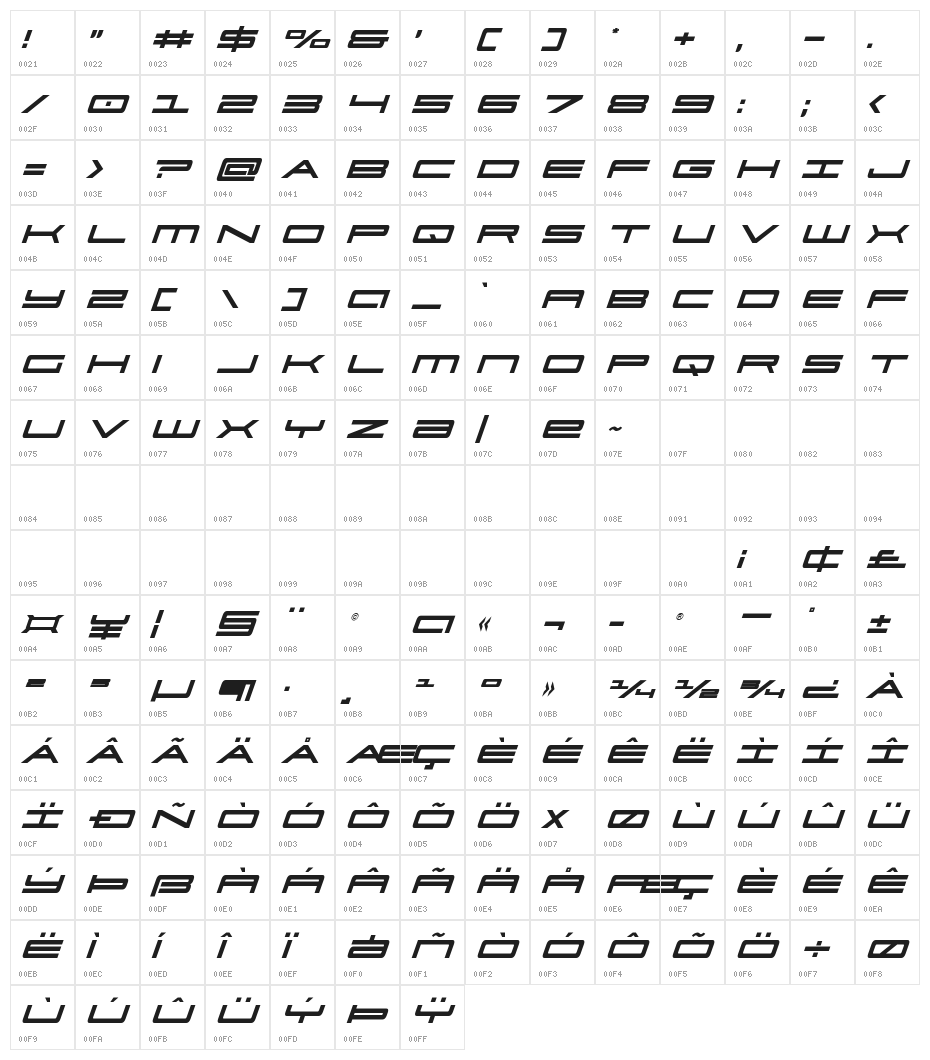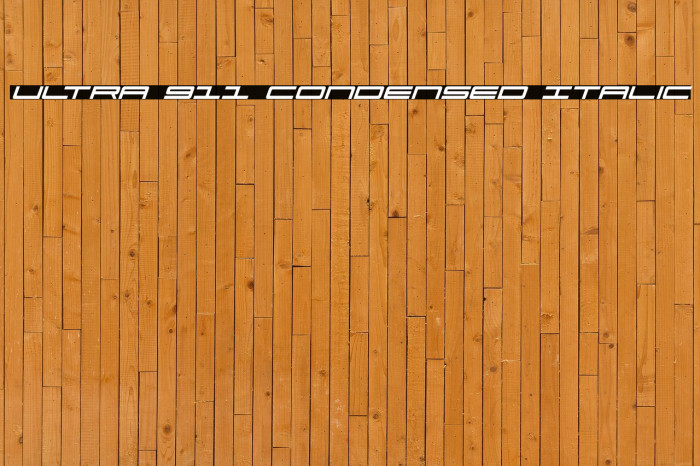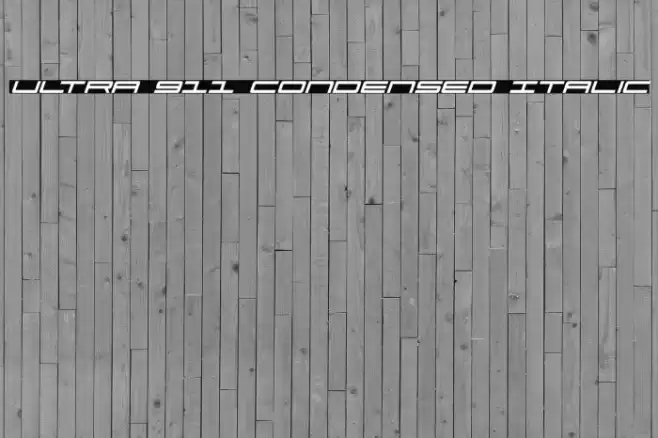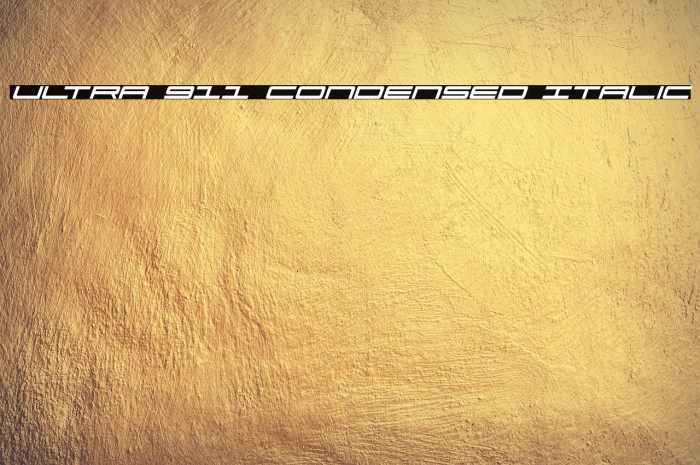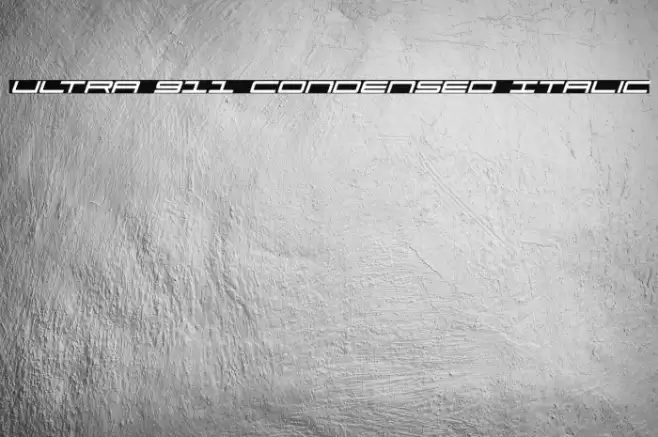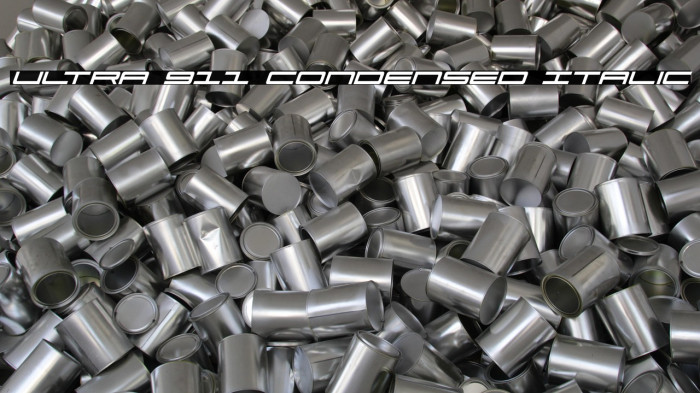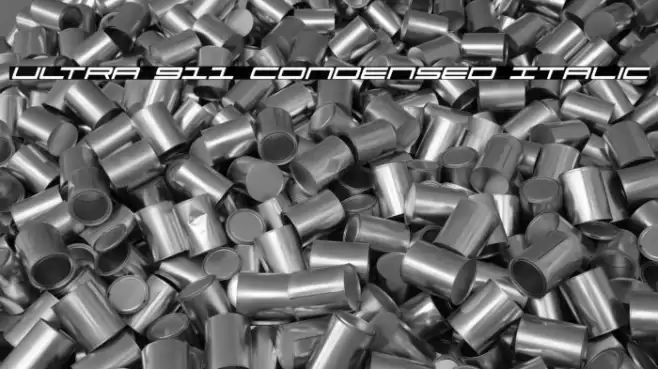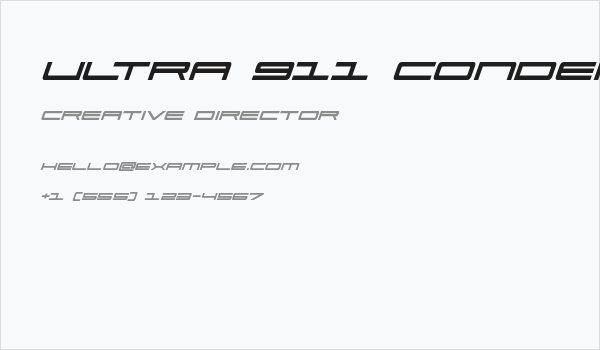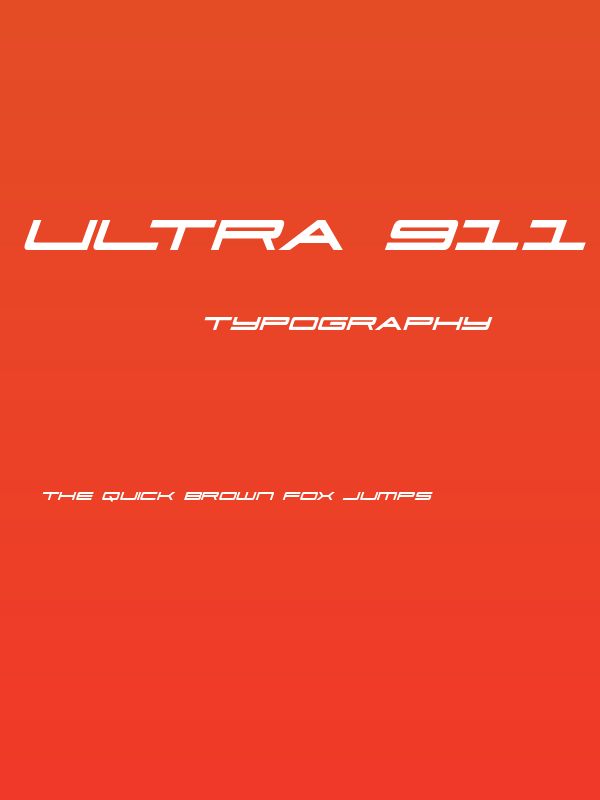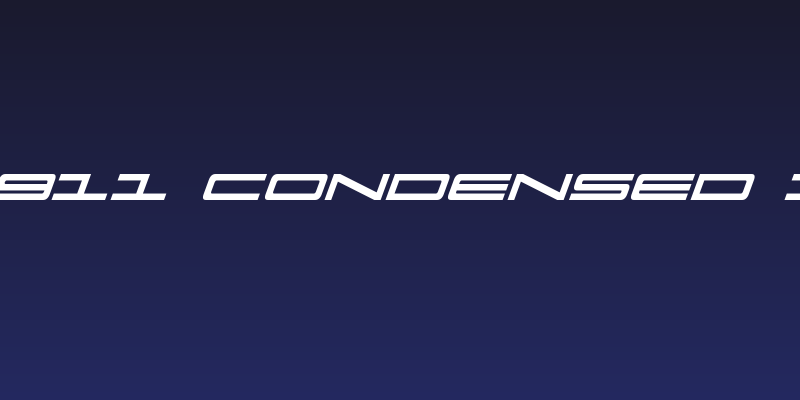
Ultra 911 Condensed Italic Font
Ultra 911 Condensed Italic Description
This font features a sleek, futuristic design with a condensed and italicized style. The characters are elongated and slightly slanted, giving a sense of speed and modernity. The strokes are consistent in thickness, providing a uniform appearance across all characters. The angular cuts and sharp edges contribute to its dynamic and technical look. This font is particularly effective in conveying a sense of innovation and forward-thinking, making it suitable for technology-related projects or branding that aims to appear cutting-edge.
| Proposed Projects | Ideal for technology branding, automotive designs, futuristic posters, and innovative product packaging. |